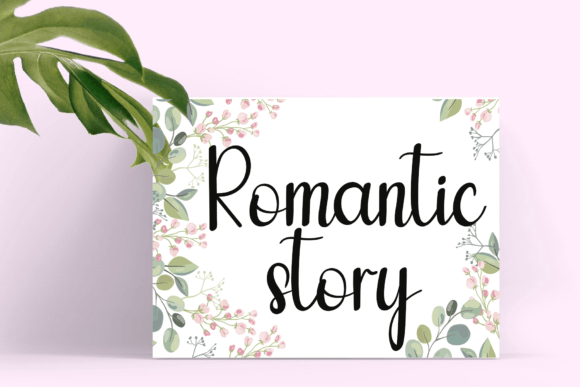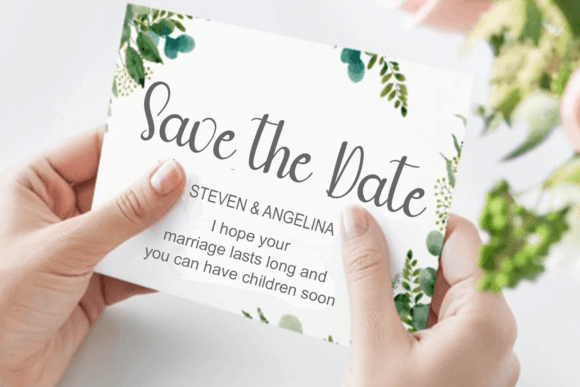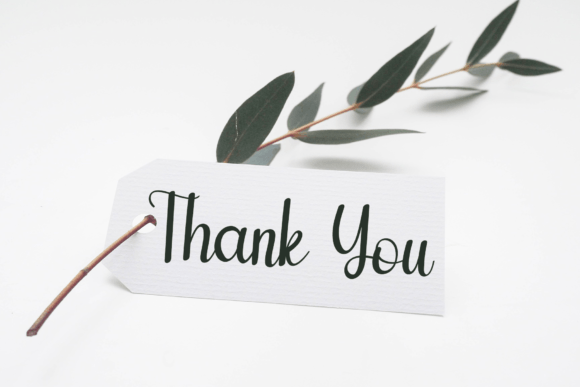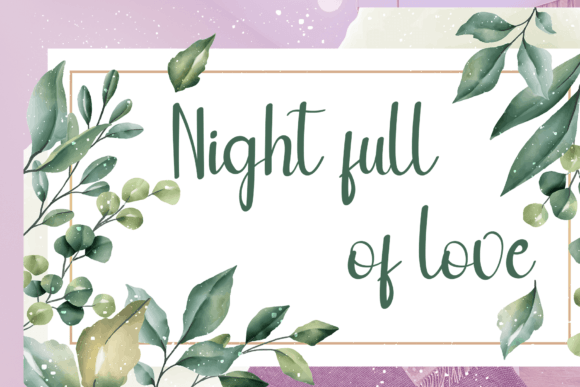
Honeymoon Font
About Honeymoon Font
“Honeymoon” is a stylish handwritten font that exudes a contemporary atmosphere and impeccable form, drawing inspiration from timeless classic calligraphy. Crafted with balance and variation, this font is designed to elevate the beauty of your projects, adding a touch of sophistication and style.
The contemporary aesthetic of “Honeymoon” makes it a versatile choice for a wide range of applications. Whether you’re working on branding, invitations, social media graphics, or other design projects that demand a modern and elegant look, this font is tailored to enhance the visual appeal.
The influence of timeless classic calligraphy brings a sense of tradition and refinement to “Honeymoon.” This makes the font suitable for projects where you want to convey a timeless and sophisticated vibe, such as wedding invitations, upscale branding, or any design that requires a touch of classic beauty.
The varied design of the font ensures a harmonious and visually pleasing result. Each character contributes to the overall flow, creating a cohesive and stylish appearance. “Honeymoon” stands out as a typeface that not only communicates elegance but also brings a unique personality to your projects.
In summary, “Honeymoon” is more than just a font; it’s a design element meticulously crafted to enhance the beauty of your projects. Whether you’re creating sophisticated branding materials, elegant invitations, or any design requiring a stylish handwritten touch, “Honeymoon” stands out as a versatile and captivating choice.